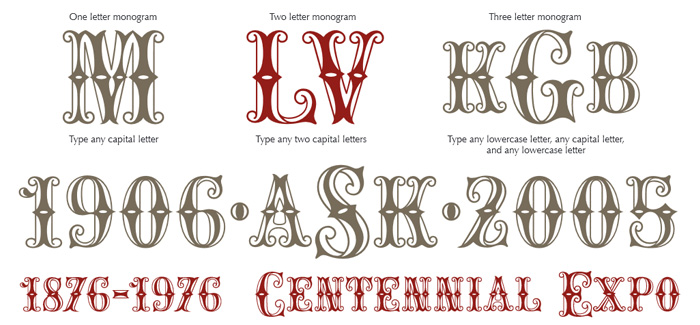
Carnivale Monogram font
Carnivale Monogram font is inspired by an elegantly sexy antique of typographic history. The fancy typeface, known as Romantiques No. 3 or Ornate No. 2, has been digitally revived and expanded for monogram designs. Its ornate nature is a refined appearance that is perfect for a wide range of personalized labeling. And lastly, due to its traditional smallcaps composition, Carnivale Monogram can also be used for headings and titles.
Designers: Brian J. Bonislawsky, Jim Lyles